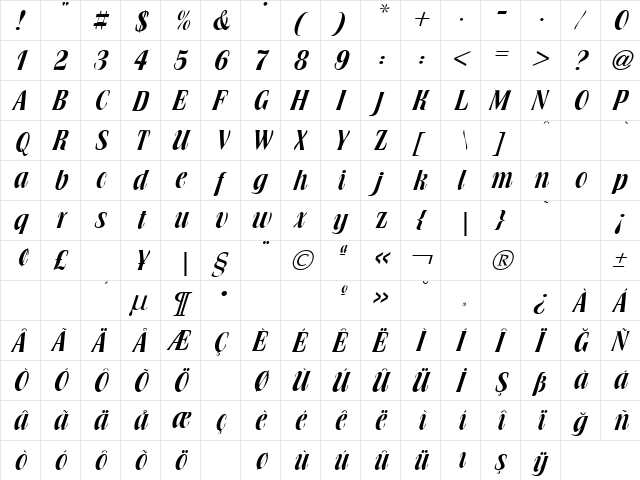
TR Brochure Regular
Design Context for TR Brochure Typeface
TR Brochure offers clean, dependable letterforms without strong stylistic allegiance, making it a practical choice for designers who need flexibility.